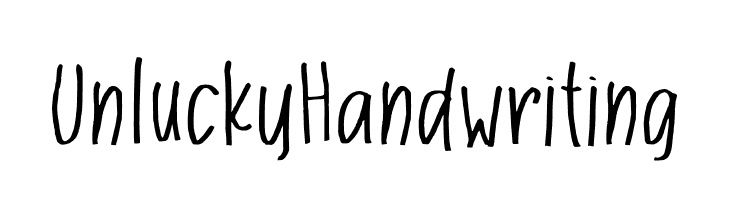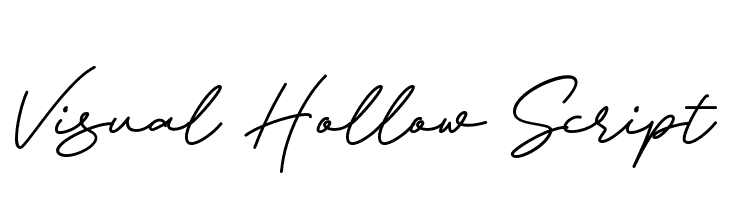
A flowing, cursive font with elegant, connected characters.
A dynamic and elegant handwritten font with fluid strokes.
A whimsical, cursive script font with elegant, flowing lines and decorative flourishes.
An elegant, cursive font with flowing, interconnected letters and ornate uppercase characters.
A playful, casual handwritten font with uneven strokes and a whimsical style.
A lively, handwritten font with fluid strokes and a playful elegance.
A flowing, cursive font with elegant, sweeping lines and a handwritten appearance.
A dynamic and elegant script font with flowing, cursive letterforms.
A playful and elegant script font with a handwritten style and decorative flourishes.
A lively and flowing cursive font with elegant connections and playful lowercase letters.